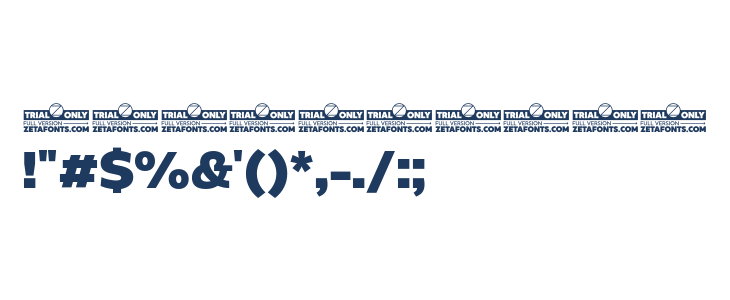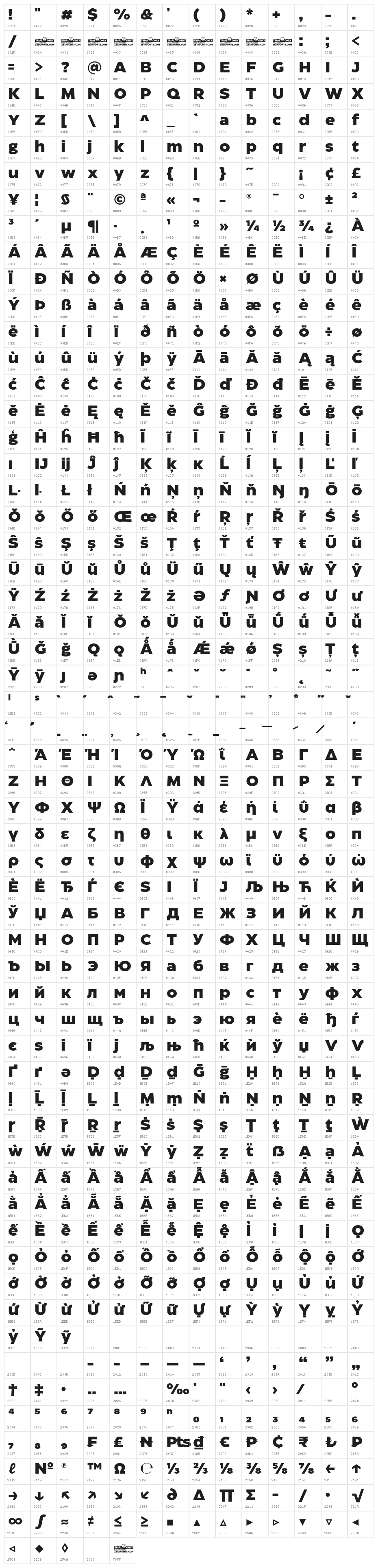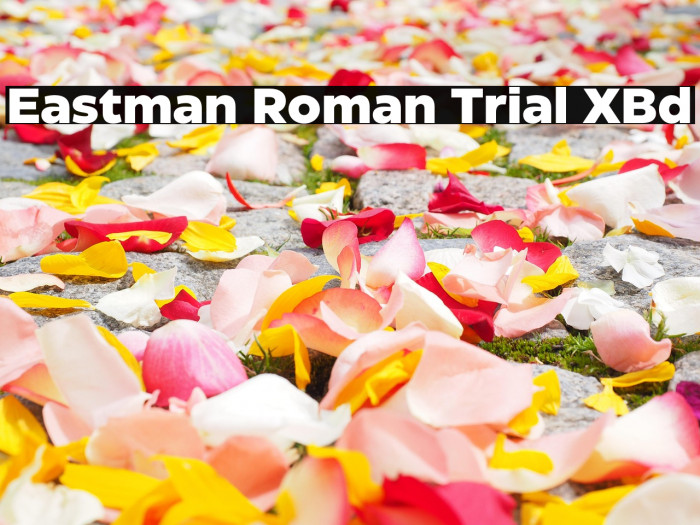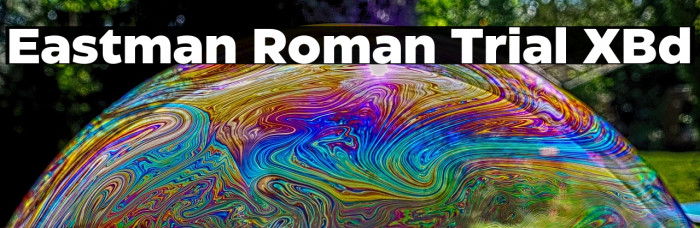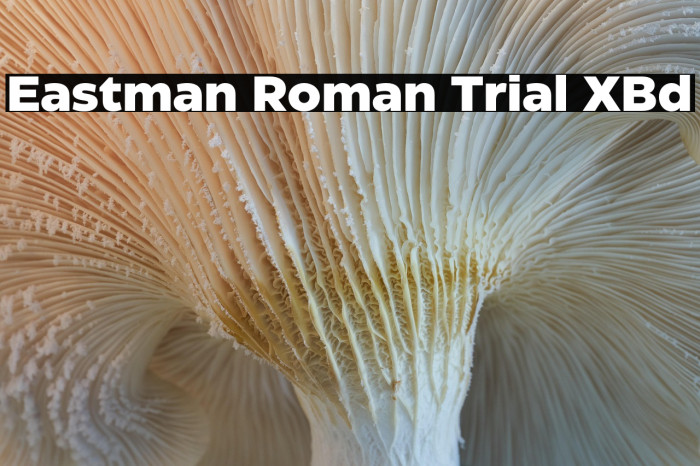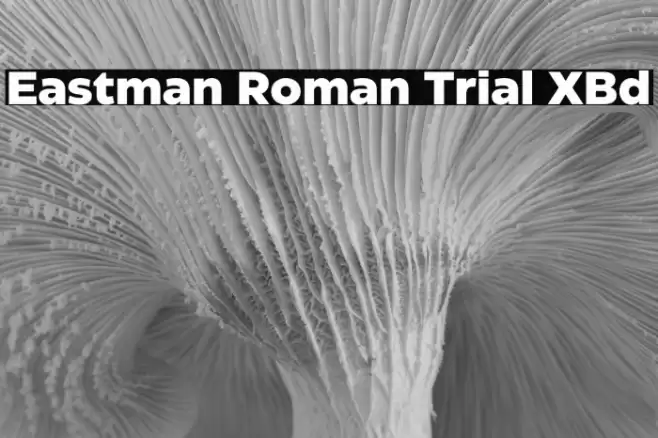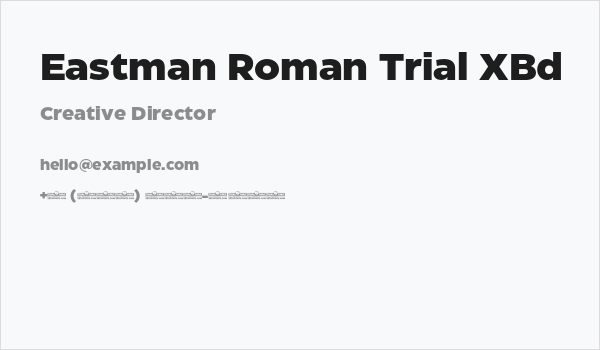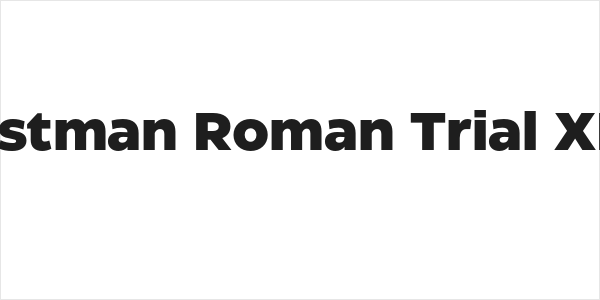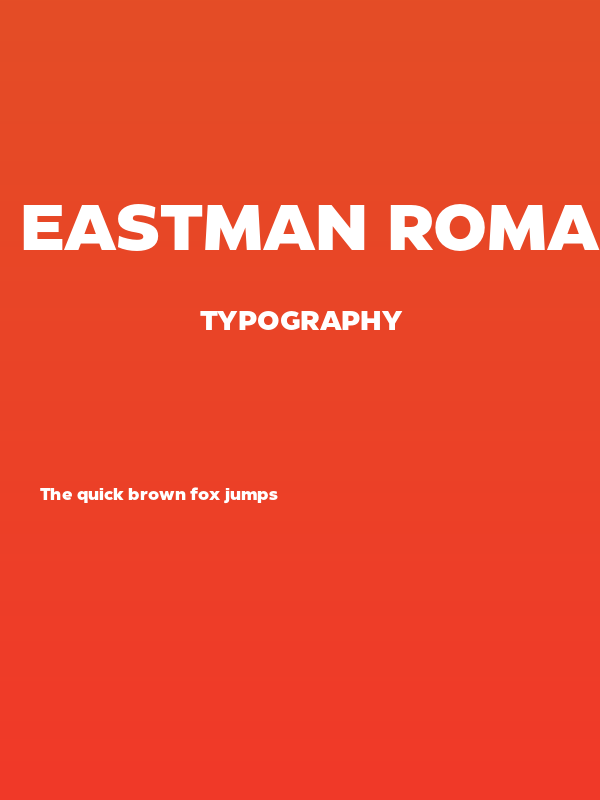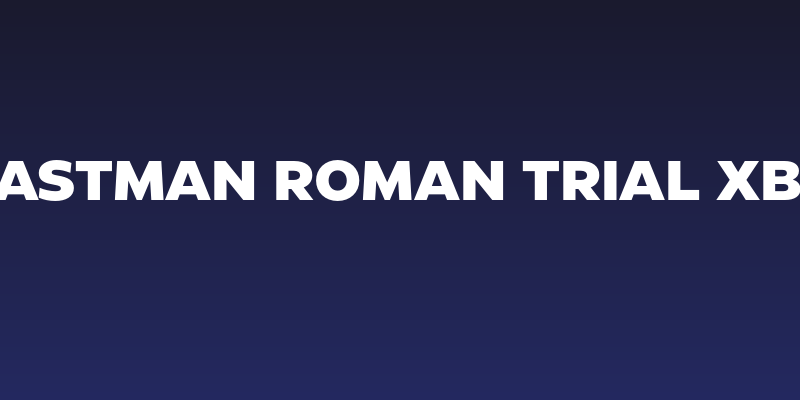
Eastman Roman Trial XBd Font
Eastman Roman Trial XBd Description
This font features a bold and robust design, characterized by thick, uniform strokes that convey strength and stability. The uppercase and lowercase letters maintain a consistent weight, providing a sense of balance and harmony. The characters are well-defined with clean edges, making them highly legible. The font's geometric structure gives it a modern and professional appearance, suitable for a variety of applications. Its boldness ensures that it stands out, making it ideal for headlines and titles. The spacing between characters is tight, enhancing its compact and impactful look.